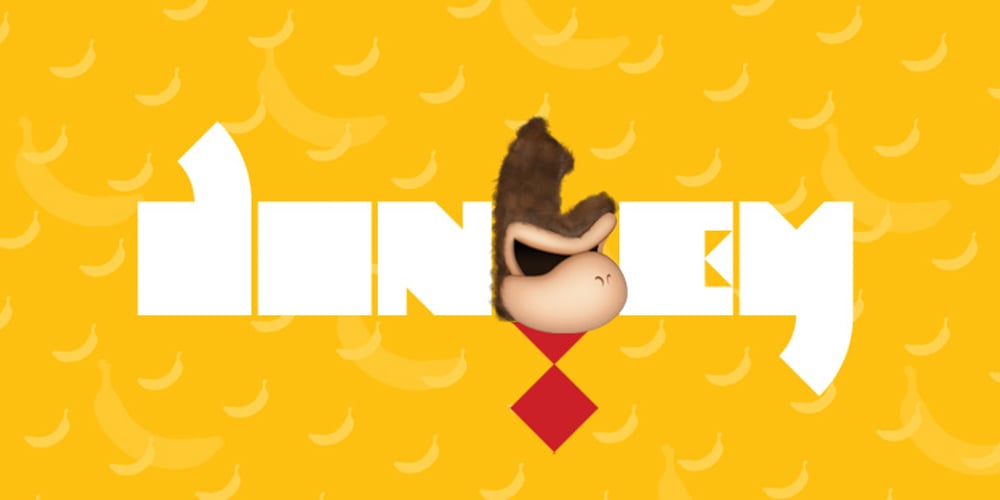
King Pong
King Pong font
King Pong Font Family was designed by Dan Auer and published by Dan Auer. King Pong contains 1 styles and family package options. Inspired by apes and barrels, King Pong is a display font that’s heavy, blocky, yet cheerful. Letterforms are brought to life through removal from a single square. Ascenders and descenders bring contrast and interest to the letterforms through a curved form cut at a 45 degree angle. King Pong works great for themes related to video games, technology, and music while the letterforms perform well in low-contrast environments and in very large formats – such as posters.